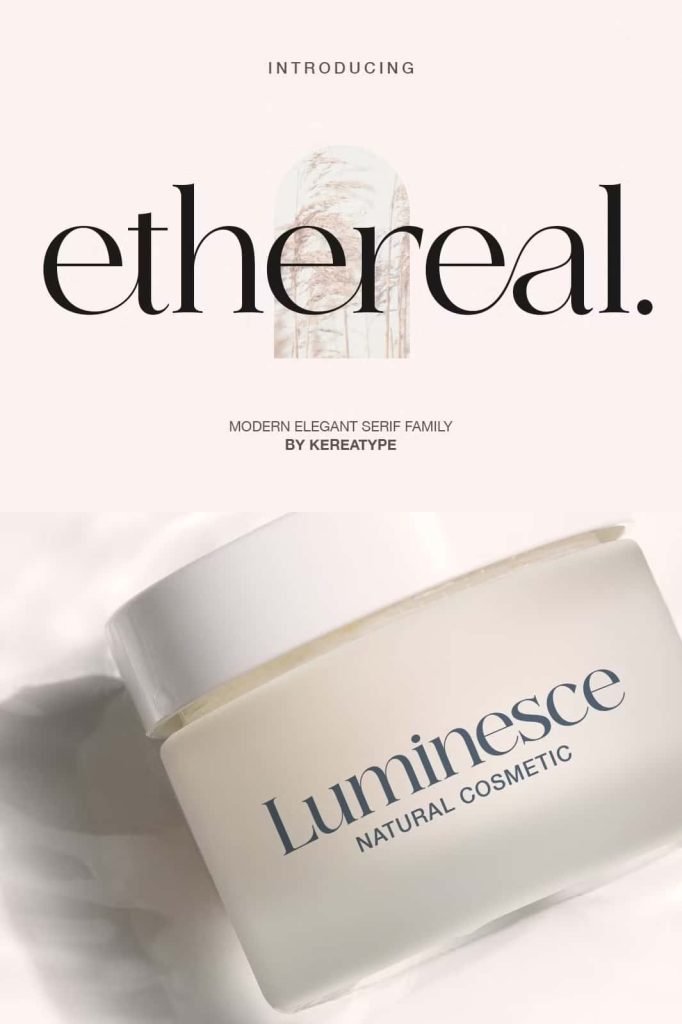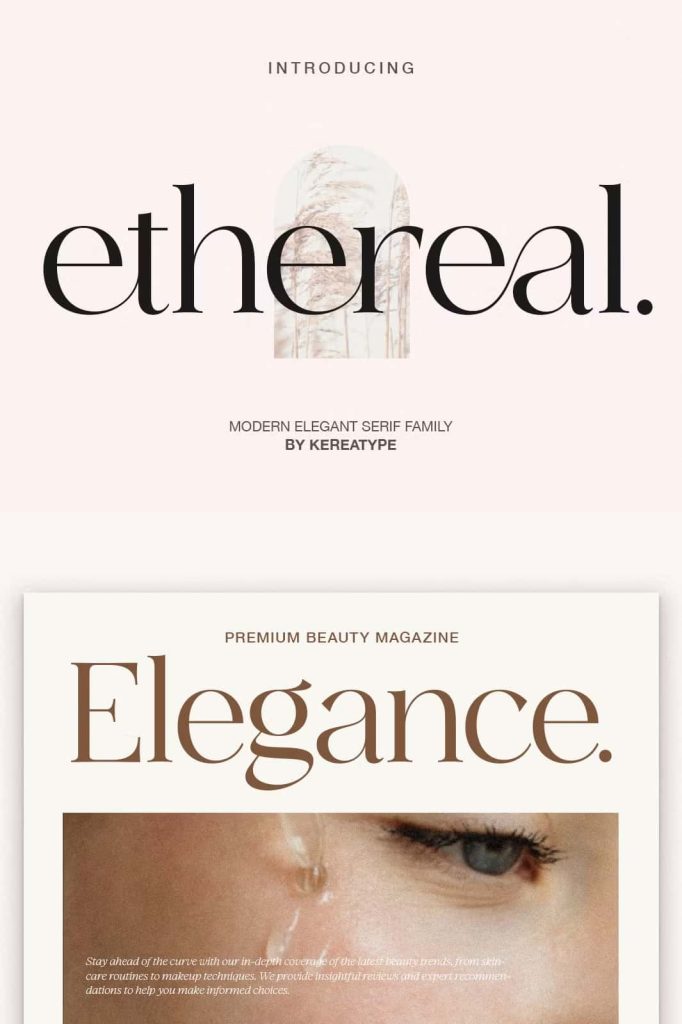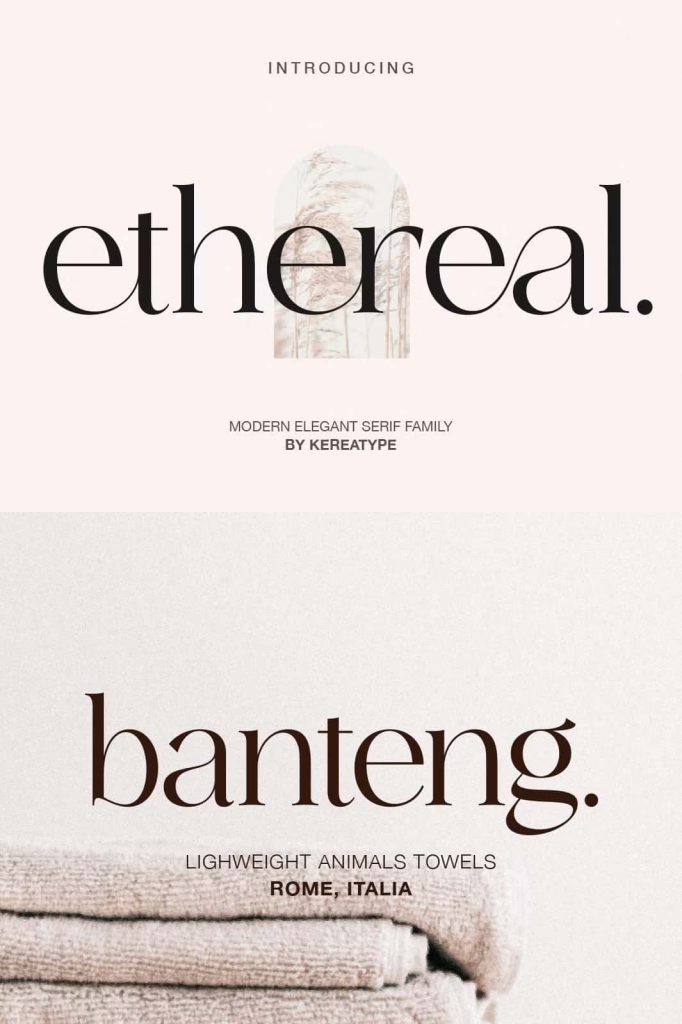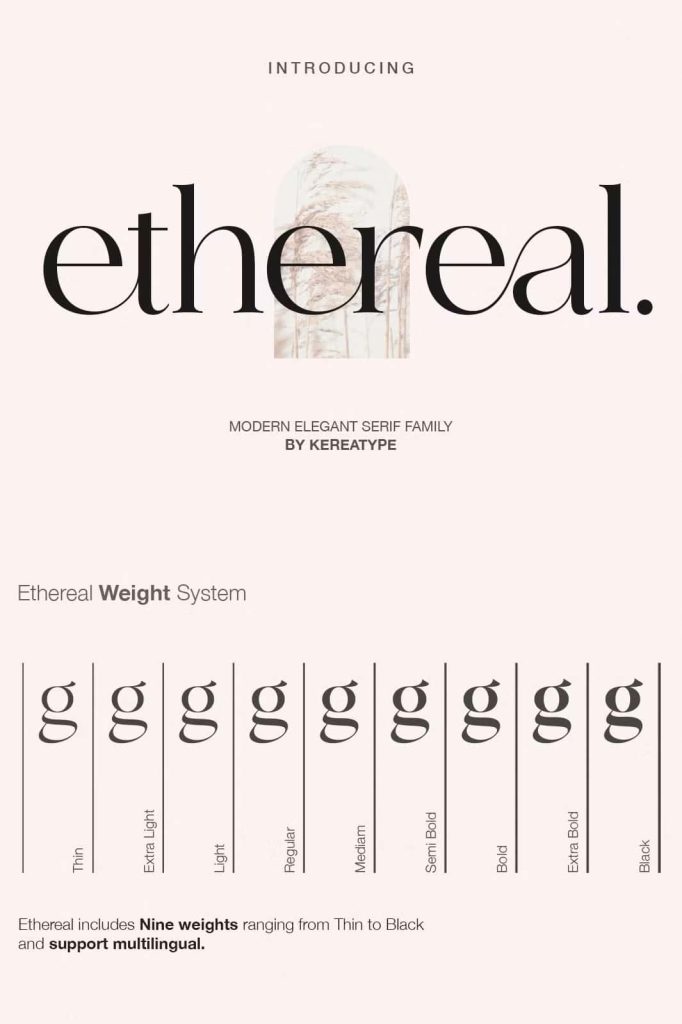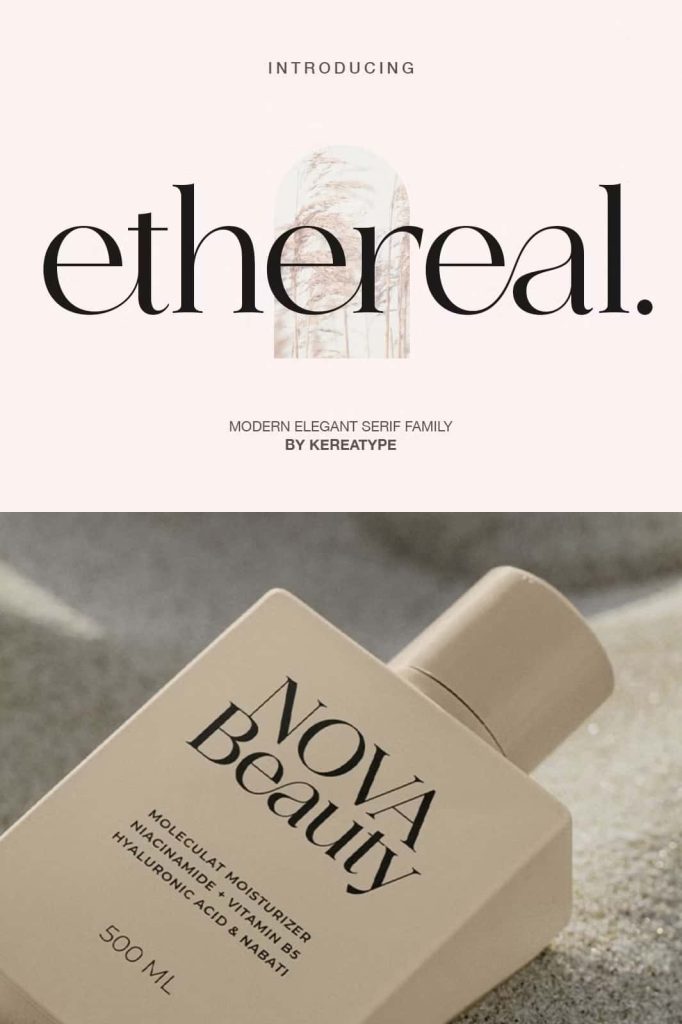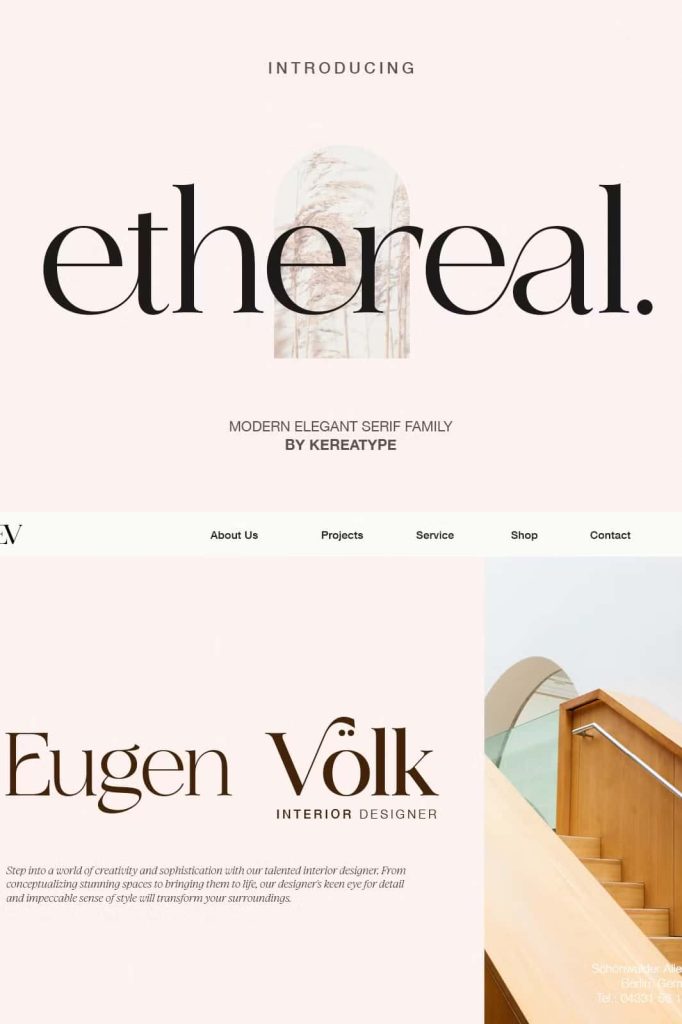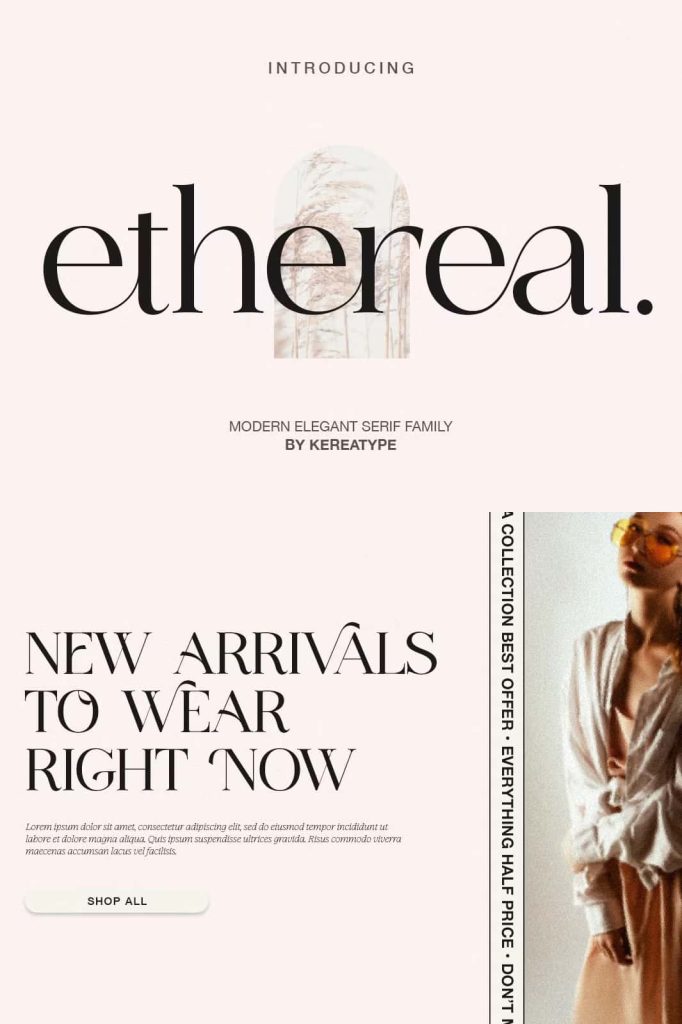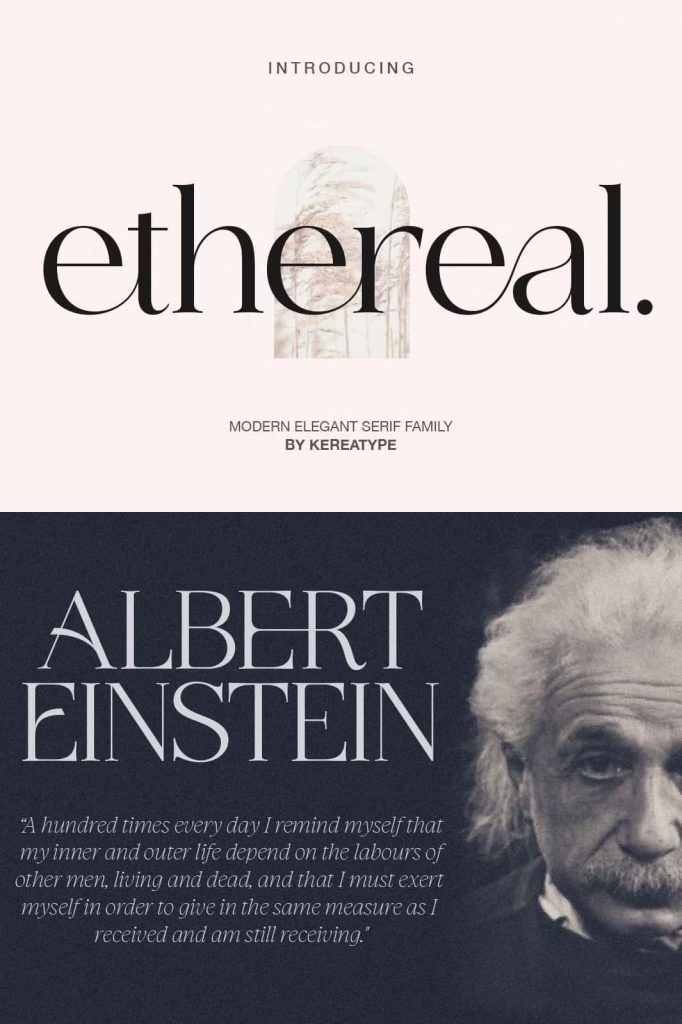
Ethereal – Elegant Serif Family
Ethereal Serif Font Family by Kereatype: Modern Elegance in Perfect Balance
Ethereal by Kereatype is a modern serif font family created to express refinement, confidence, and contemporary elegance. Designed as a complete typographic system, Ethereal includes nine carefully crafted weights that give designers the freedom to build strong visual hierarchy while maintaining consistency and sophistication. This font family goes beyond basic typography and becomes a defining element in high-end design projects.
Ethereal balances classic serif structure with modern sensibility. Its letterforms feel graceful and controlled, yet confident and expressive. Every detail has been shaped to support premium branding, editorial layouts, and creative work that demands both beauty and performance.
A Modern Serif Family Designed for Versatility
Ethereal functions as a full serif family rather than a single display font. With nine weights available, it allows designers to move seamlessly from delicate text settings to powerful headlines without changing typefaces. This versatility makes Ethereal a reliable choice for complex design systems where cohesion matters.
The font family supports a wide range of applications, from refined editorial layouts to bold branding statements. Each weight maintains consistent proportions and spacing, ensuring a smooth reading experience across different sizes and uses.
Nine Weights for Complete Creative Control
The nine-weight structure of Ethereal gives designers precise control over tone and emphasis. Lighter weights communicate softness and elegance, while heavier weights deliver authority and presence. This range allows for expressive contrast within a single typographic family.
Designers can confidently use Ethereal for body text, subheadings, and display typography, knowing that every weight aligns harmoniously with the others.
Fashionable Design with Elegant Details
Ethereal stands out through its fashionable aesthetic and refined details. The serifs are sharp yet balanced, adding a sense of sophistication without appearing rigid. Smooth curves and thoughtful stroke contrast create a flowing rhythm that feels luxurious and modern.
The font includes stylish extras that enhance its expressive potential. These subtle design features add character and visual interest, allowing typography to feel intentional and elevated rather than purely functional.
Stylish Extras That Enhance Personality
The added stylistic elements in Ethereal give designers the ability to inject personality into their layouts. These extras work especially well in branding, fashion-related projects, and editorial headlines where visual flair plays an important role.
Rather than overwhelming the design, these details complement the overall structure of the font, maintaining clarity and elegance at all times.
Contemporary Sophistication for Modern Design
Ethereal by Kereatype embodies contemporary sophistication. It reflects modern design values such as clarity, balance, and intentional simplicity while retaining the timeless appeal of serif typography. This combination allows Ethereal to feel current without becoming trend-dependent.
The font adapts easily to modern design environments, including digital interfaces, print layouts, and branding systems. Its refined proportions ensure strong legibility while preserving a premium aesthetic.
• Branding and visual identity design
• Editorial layouts and magazines
• Fashion and luxury projects
• Packaging and product presentation
• Web design and digital publishing
Designed to Elevate Your Creative Projects
Ethereal was created to elevate design work through typography that feels confident and intentional. It enhances layouts by adding a layer of elegance and professionalism that instantly raises perceived value. Whether used in subtle text blocks or bold headlines, the font maintains its refined character.
This serif family works particularly well for designers who want their typography to communicate quality and taste. It supports storytelling through structure and style rather than excessive ornamentation.
A Typeface That Makes a Statement
Ethereal is more than just a font; it is a design statement. It reflects a commitment to modern elegance and thoughtful craftsmanship. Each letterform contributes to a cohesive visual language that strengthens brand identity and enhances creative expression.
For designers seeking a modern elegant serif font family with flexibility, style, and contemporary sophistication, Ethereal by Kereatype delivers a complete typographic solution. It brings harmony between tradition and innovation, allowing typography to speak with clarity, confidence, and timeless beauty.